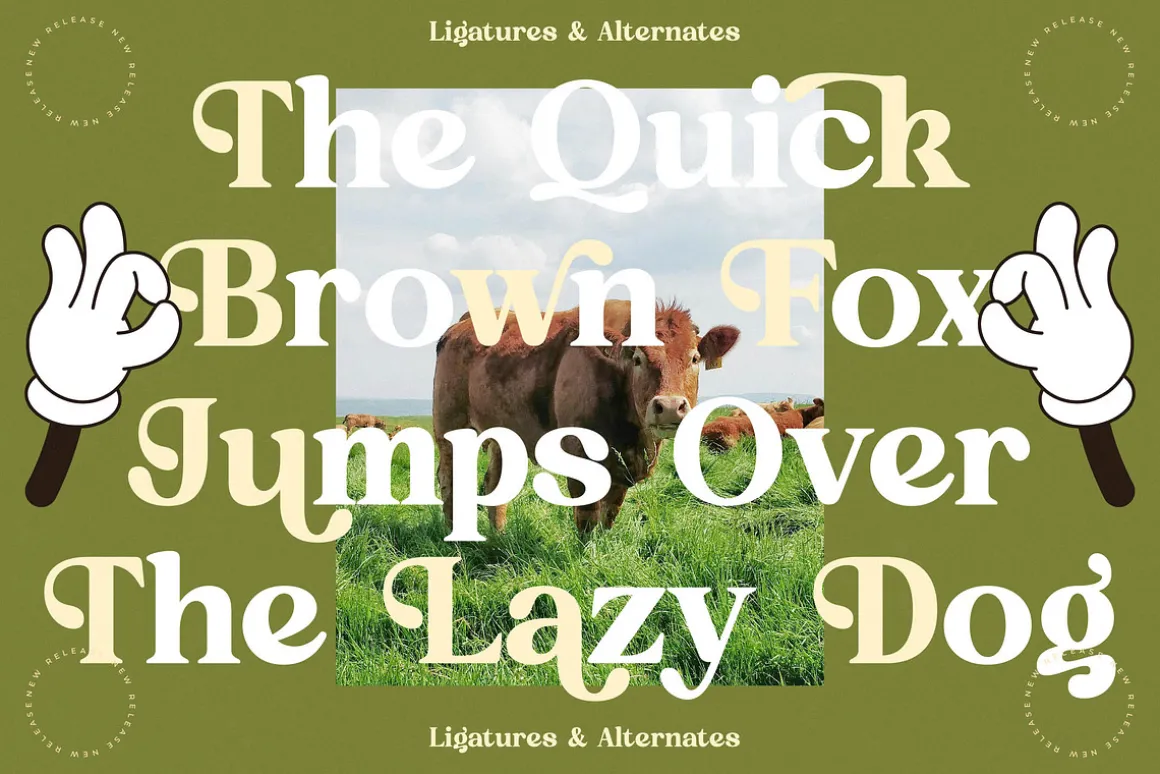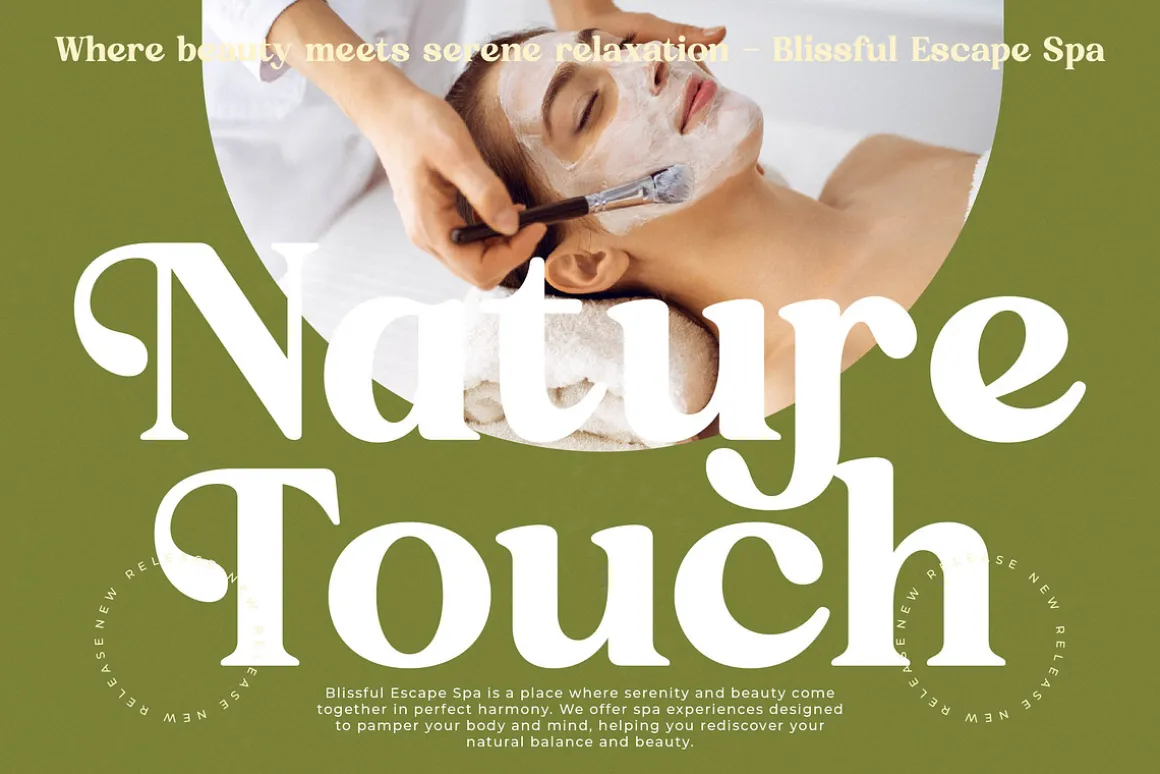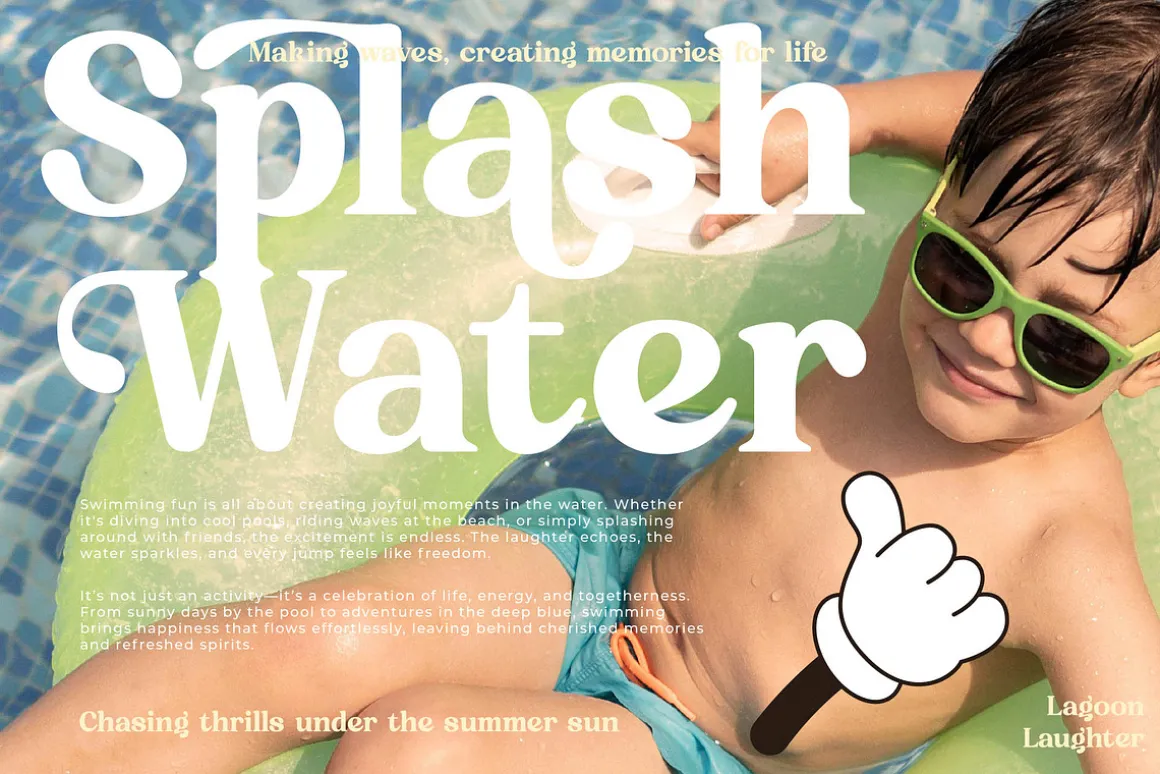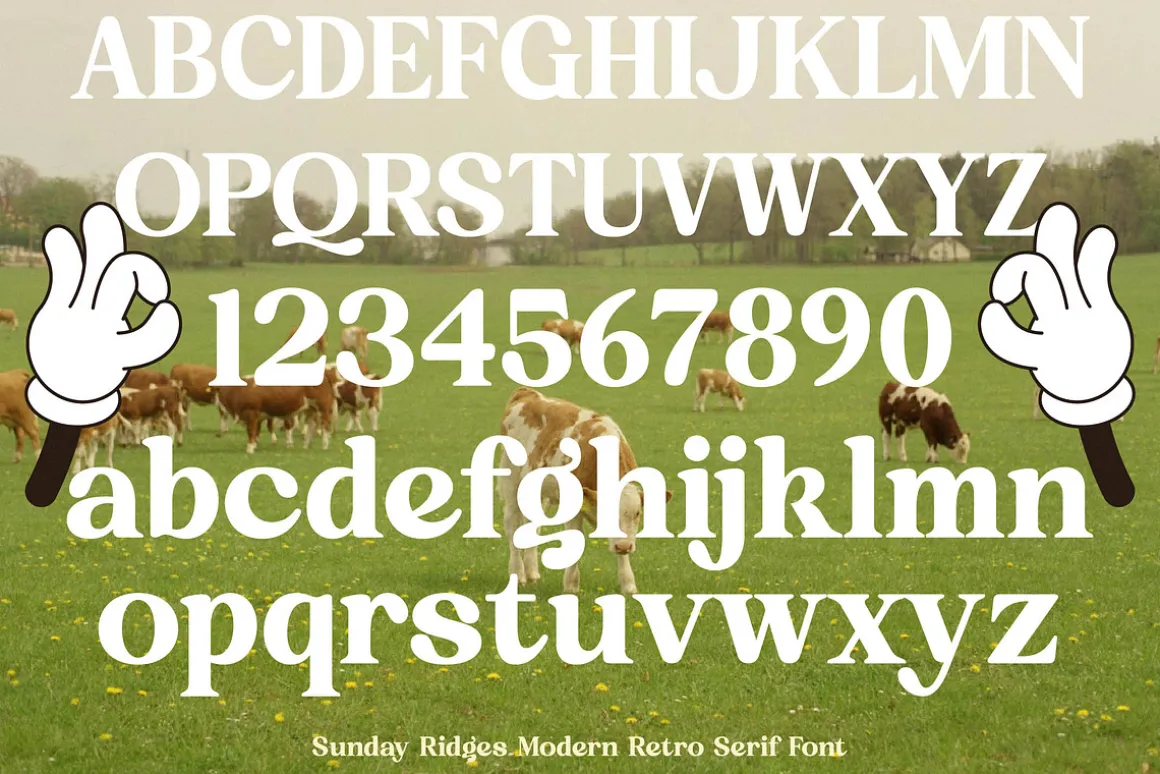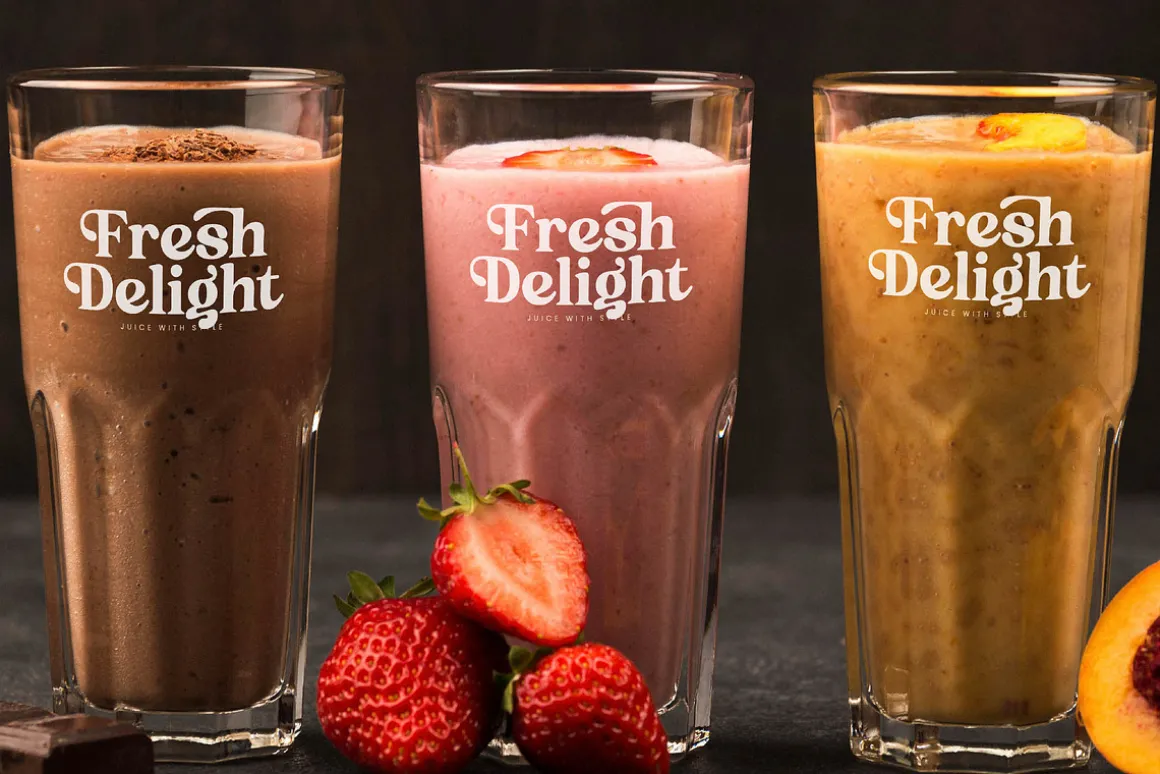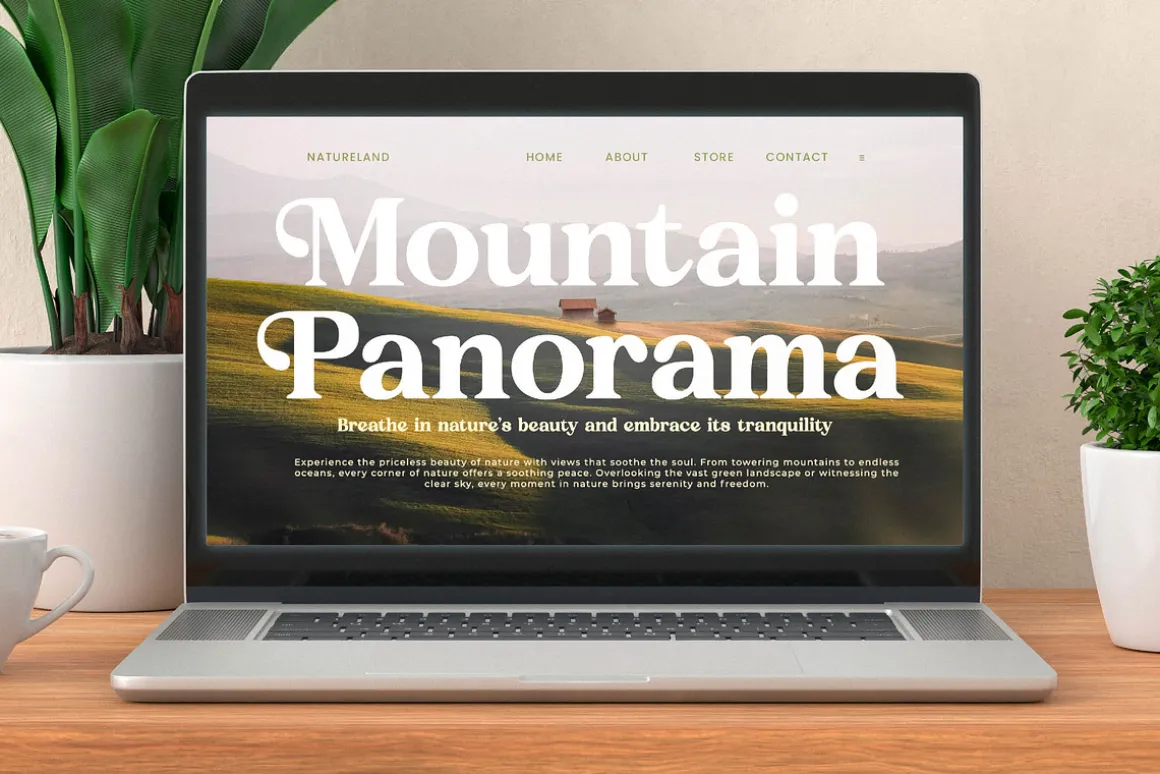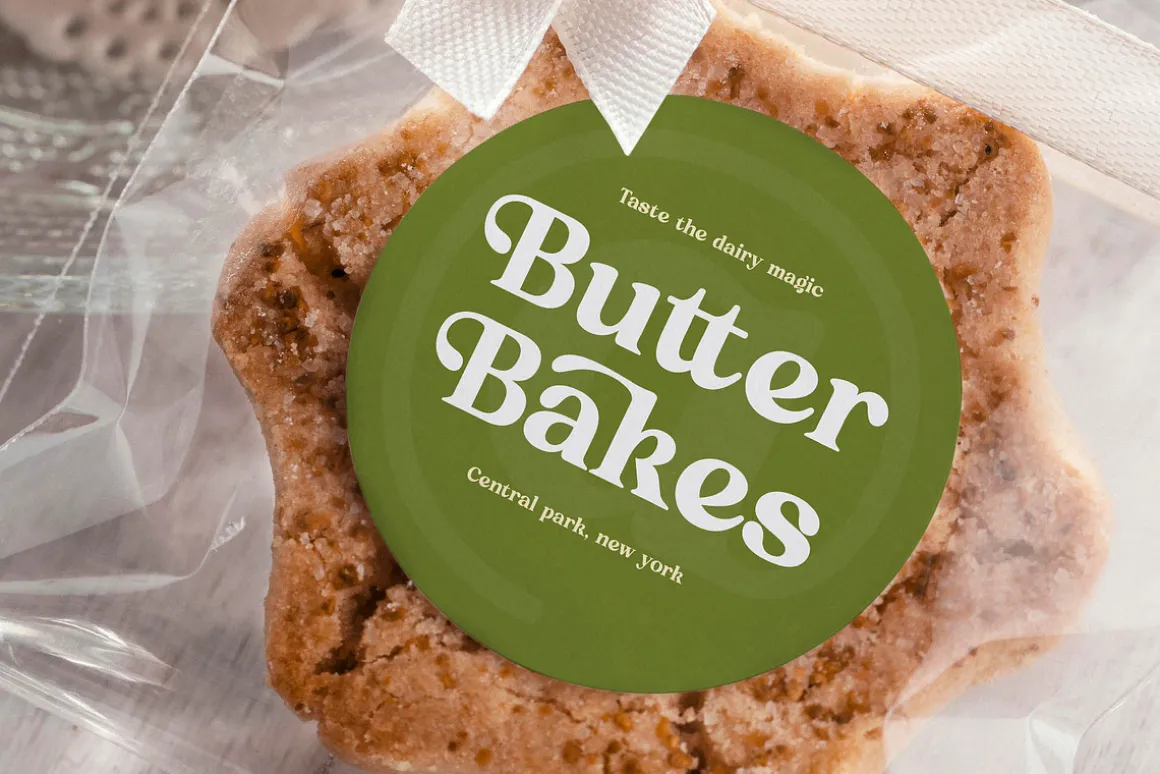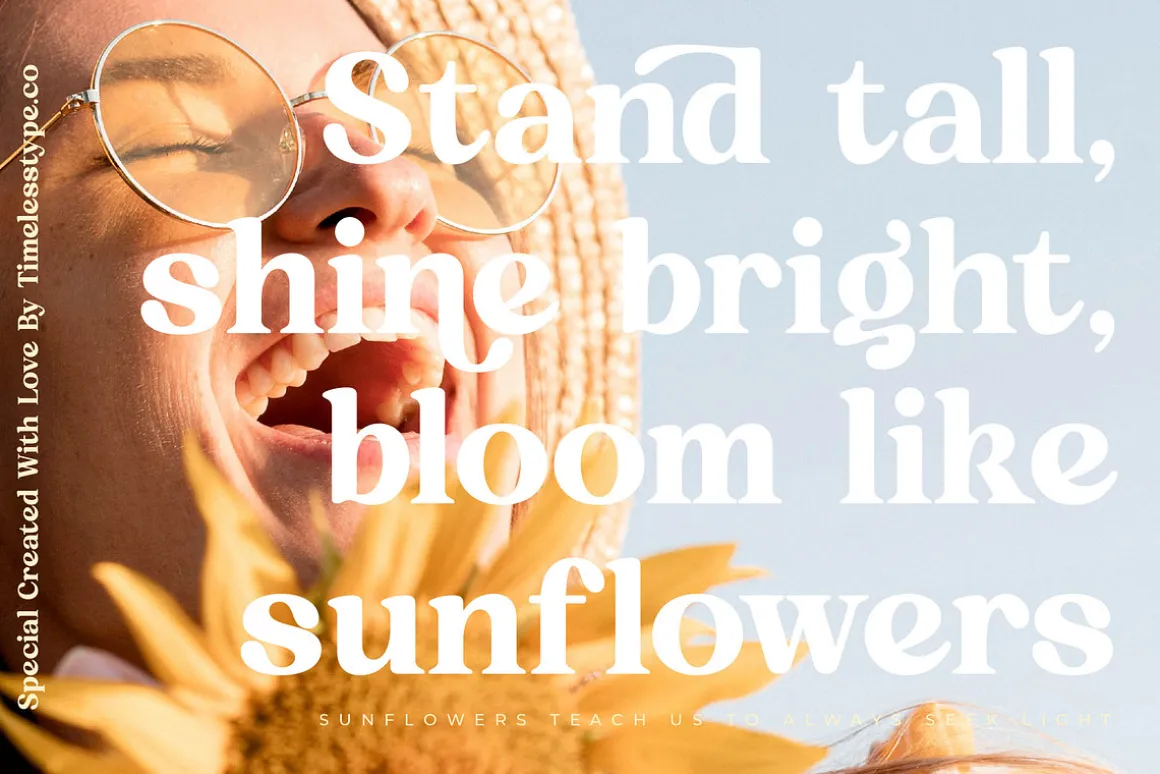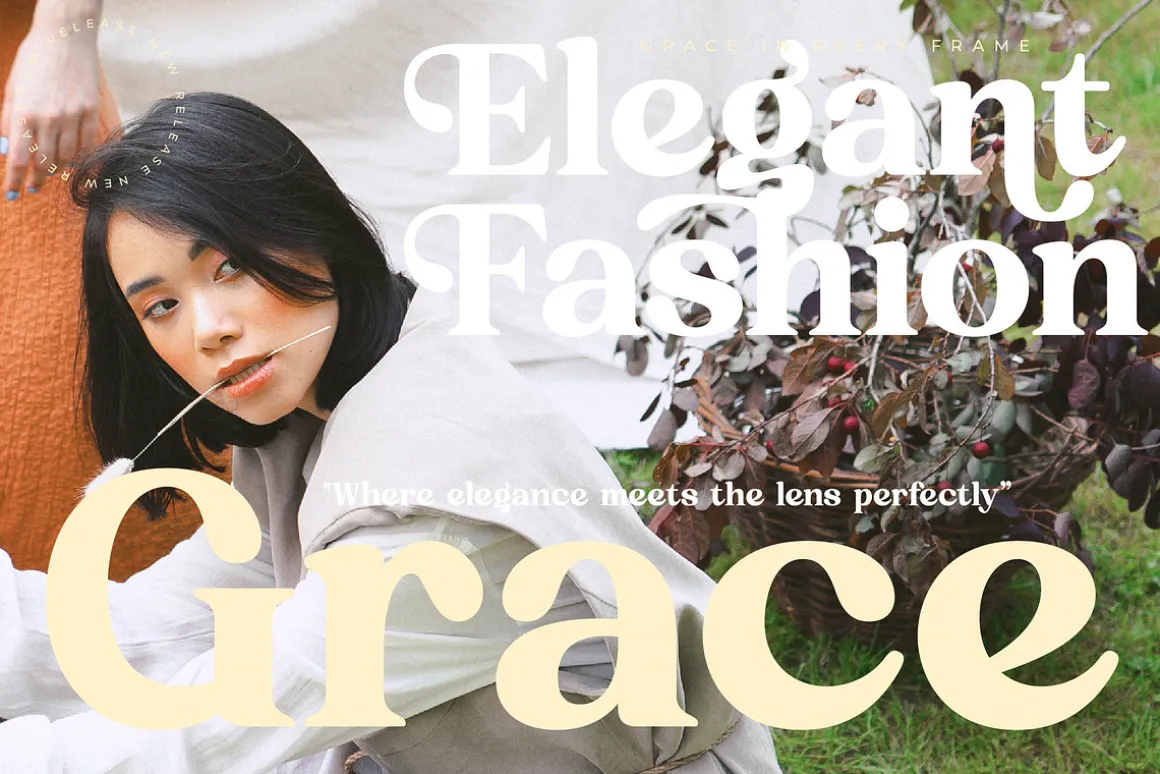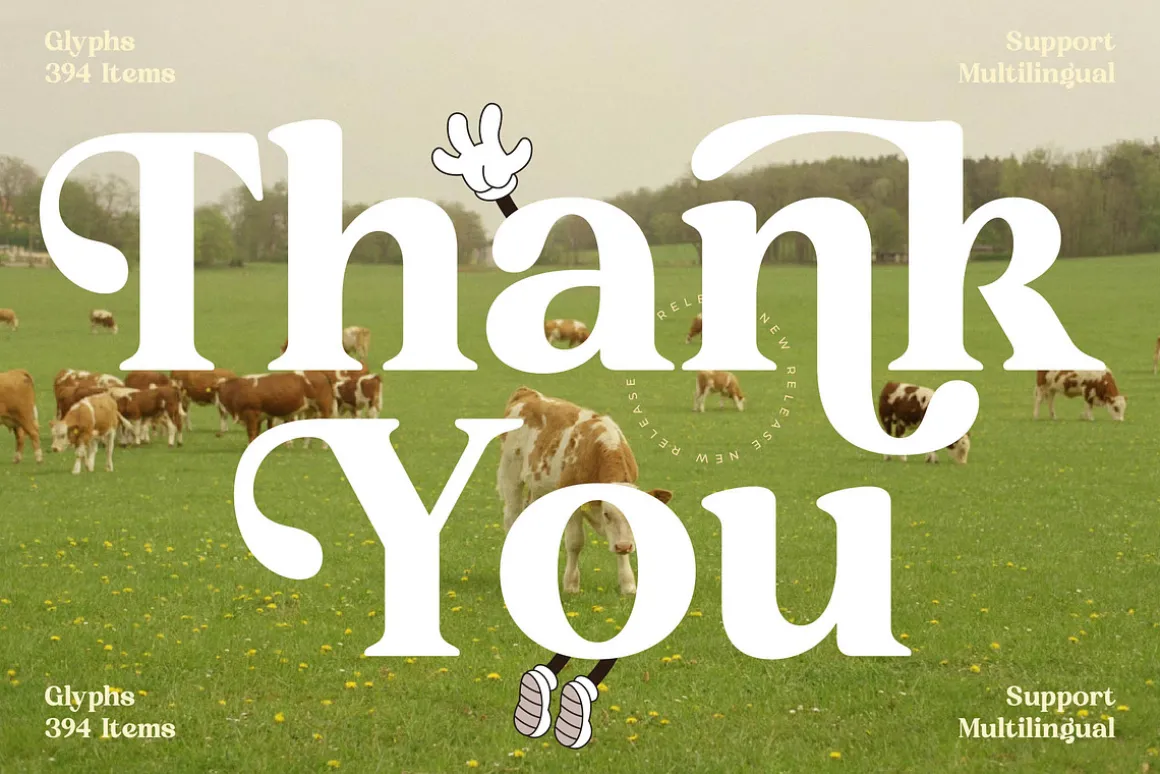
Embrace the timeless charm and whimsical elegance of Sunday Ridges, a typeface designed to infuse your creative projects with a sense of nostalgia and modern flair. This font captures the perfect balance between classic sophistication and a playful, laid-back spirit that resonates with today’s design sensibilities.
Drawing inspiration from the rolling pastures and the rustic warmth of golden-hour landscapes, Sunday Ridges evokes a feeling of organic beauty and artisanal craft. The unique blend of vintage cartoon aesthetics and high-end editorial curves creates a visual narrative that is both familiar and strikingly original.
With its commanding presence, this modern serif display is engineered for maximum branding impact, offering a level of luxury typography usually reserved for high-fashion mastheads. Each character is a masterclass in high-contrast serif design, making it the definitive editorial font for projects that require a touch of class and character.
As the design world leans into the modern serif trend, Sunday Ridges stands out by blending retro-revival elements with contemporary precision. It meets the growing demand for character-driven typography and editorial display fonts that feel human, expressive, and undeniably stylish in a digital-first world.
This versatile typeface is the ultimate choice for high-end logo design and comprehensive branding identity systems that need to bridge the gap between vintage and modern. Its elegant curves make it ideal for editorial layouts, luxury packaging, romantic wedding stationery, and avant-garde fashion lookbooks.
Unlock a world of creative possibilities with a vast collection of ligatures and alternates that allow you to customize every word to perfection. The font also includes decorative swashes and full multilingual support for international characters, ensuring your message reaches a global audience with consistent beauty.
- Ligature 19 Alternate 43
- Numerals
- Punctuations (OpenType Standard)
- Accents (Multilingual Characters)
- Ligatures and Alternative Style Stylistic Set